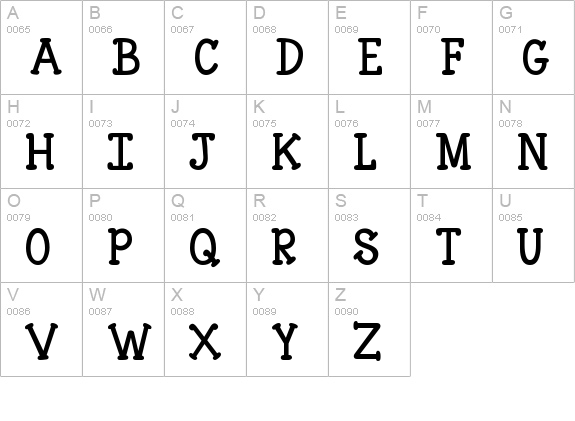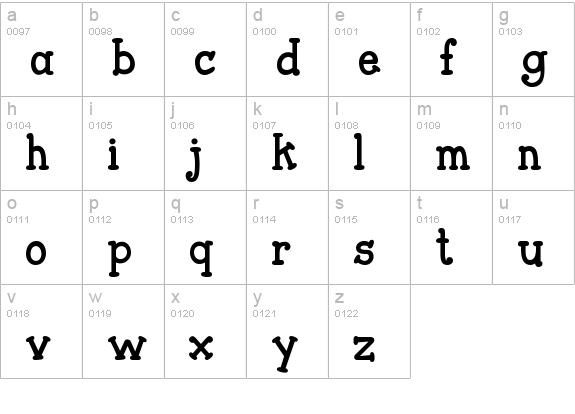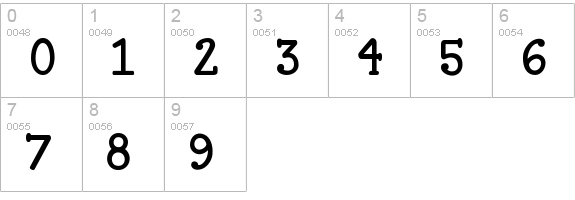
Janda Closer To Free Font Details
Janda Closer To Free font is a beautifully crafted typeface that exudes a sense of freedom and liberation. With its fluid and organic letterforms, this font captures the essence of breaking barriers and embracing a free-spirited mindset. The Janda Closer To Free font is a perfect choice for projects that aim to convey a sense of authenticity and individuality. Its unique design, characterized by playful curves and elegant strokes, adds a touch of whimsy and creativity to any text. Whether you're working on branding materials, social media graphics, or personal projects, Janda Closer To Free font will effortlessly elevate your designs. Its versatility allows it to be used in various contexts, from bold headlines to delicate script-style text. What sets Janda Closer To Free font apart is not only its aesthetically pleasing design but also the fact that it is freely available to download at FontsMarket.com. This means that you can access this fantastic font without any cost, making it ideal for designers on a budget or those who simply appreciate the value of free resources. So, if you're looking to add a touch of freedom and creativity to your designs, look no further than Janda Closer To Free font. Download it today from FontsMarket.com and unleash your imagination with this beautiful typeface.